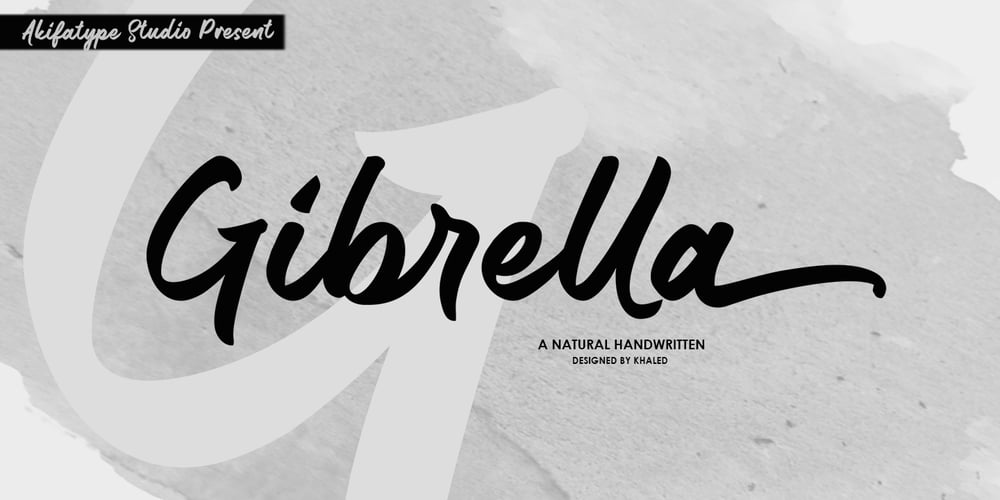
Gibrella
Gibrella font
Gibrella Font Family was designed by Khaled and published by Akifatype. Gibrella contains 1 styles and family package options. Gibrella is a modern smooth brush font, organic, dynamic and energetic sytle.Can used for various purposes. such as the title, signature, logo, correspondence, wedding invitations, letterhead, signage, labels, newsletters, posters, badges, etc.